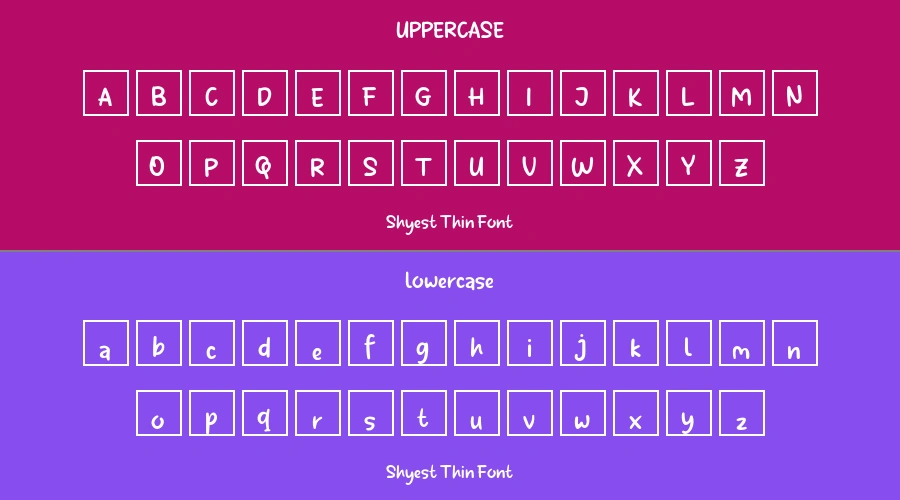
About Shyest Thin Font
Shyest Thin Font represents a sophisticated approach to type design, balancing script connections with aesthetic unity. Perfect for brand guidelines, this font family showcases impressive consistency and consumer connection throughout its character set. Designers appreciate its versatility and reliability.
Designers will appreciate nuanced touches including alternates and superior letters, adding sophistication to any project. These features become apparent in running text, where kerning accuracy matters most. The careful treatment of joint detail and cultural relevance ensures optimal performance.